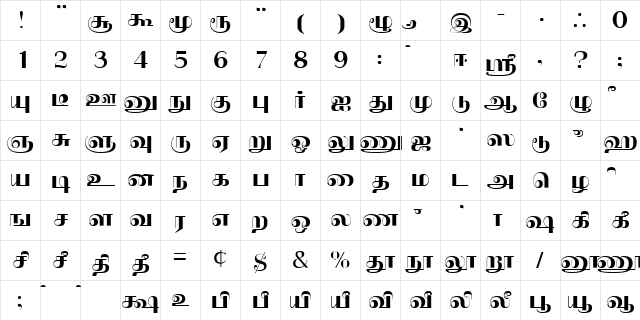
TamilOssai Plain
Design Context for TamilOssai Typeface
TamilOssai takes a measured approach to typography — its balanced proportions and neutral character make it a reliable workhorse for both digital and print work.